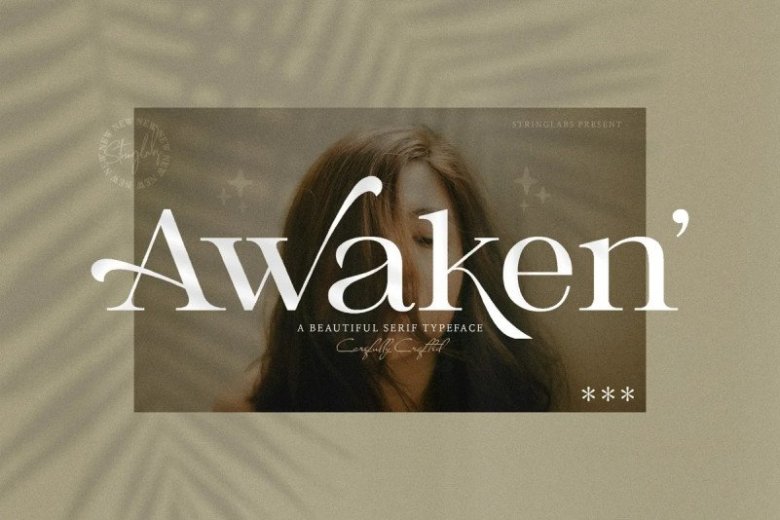
Awaken Font
Awaken Serif Font is a very seductive typeface created by StringLabs with unique tails, alternate, and extra ornaments. It can easily be matched to an incredibly large set of projects, so add it to your creative ideas and notice how it makes them stand out!